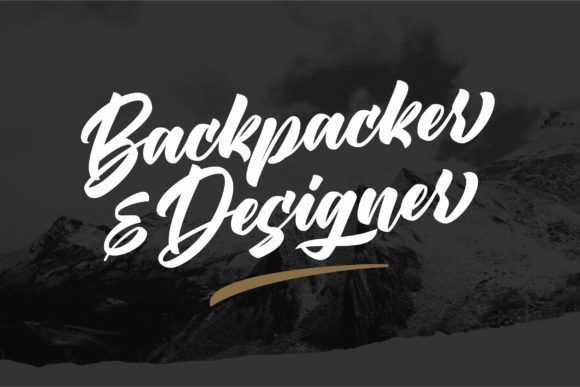
Billbreak Font
db-ku.com - Script & Handwritten -- Billbreak is a cursive and bold handwritten font, crafted to give your headlines and logotype projects a stylish touch. This font reads as strong, confident, and dynamic and can add tons of nostalgic character to your designs.